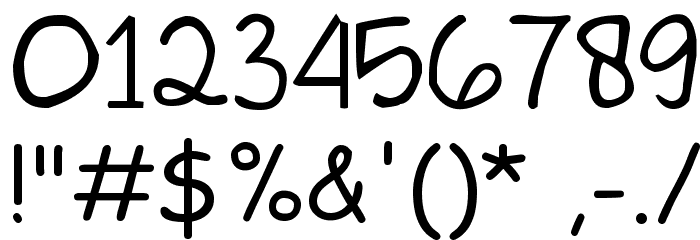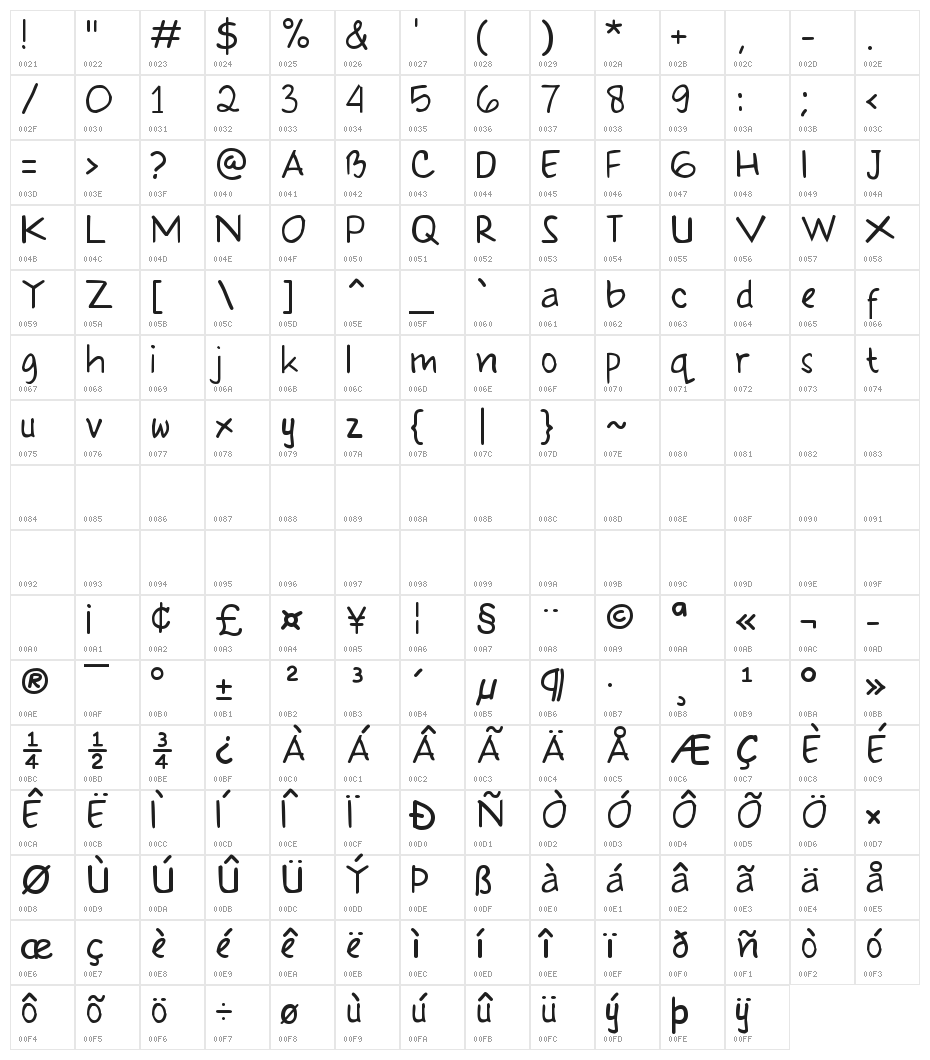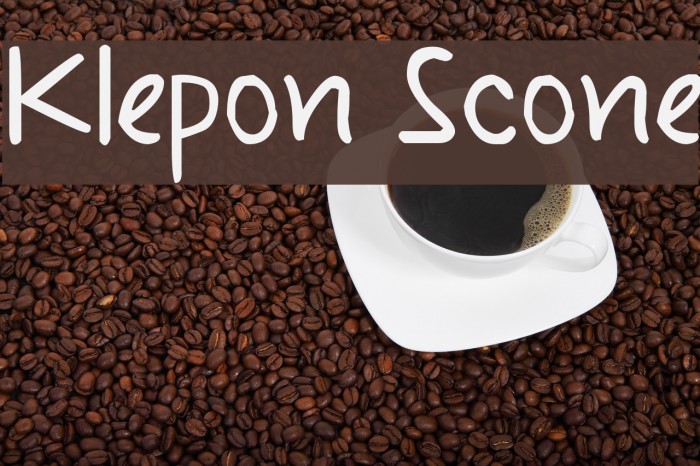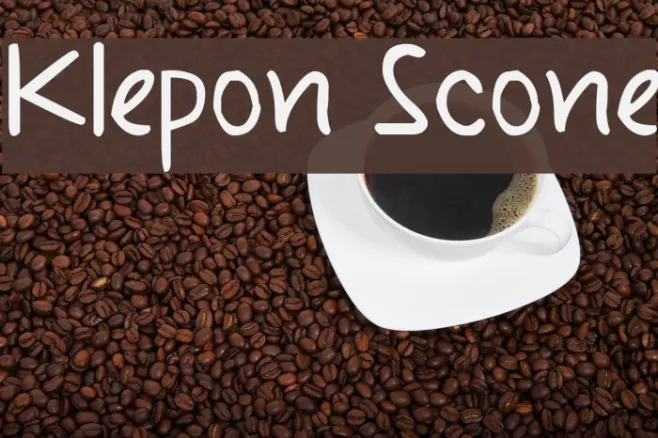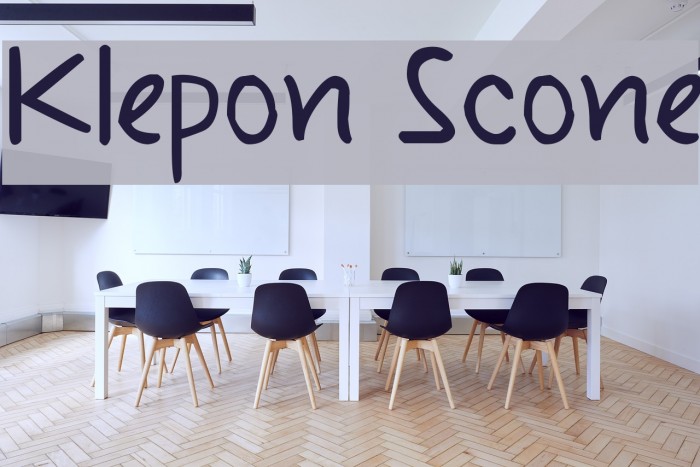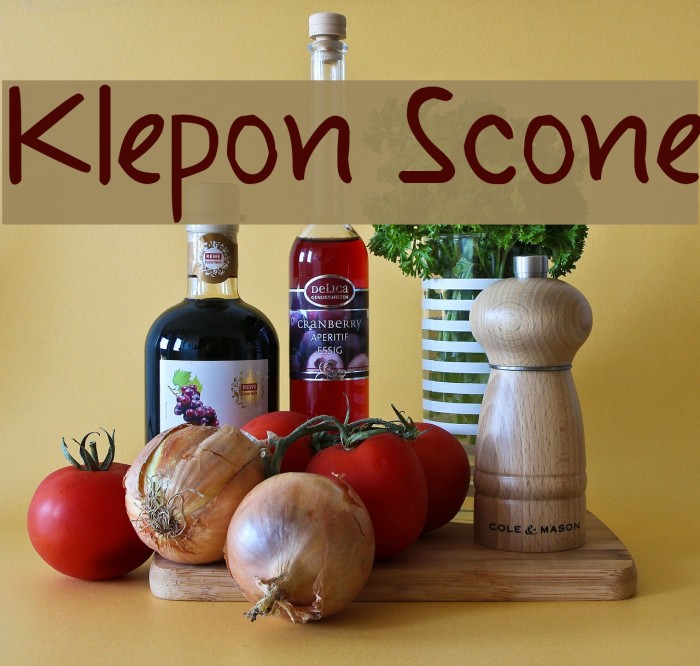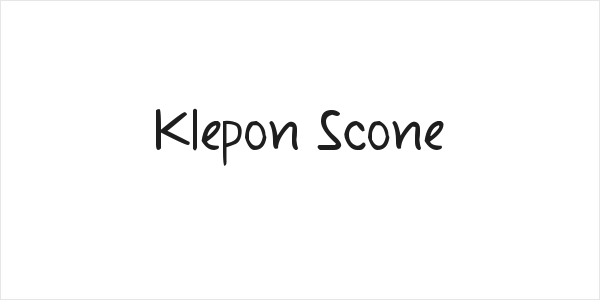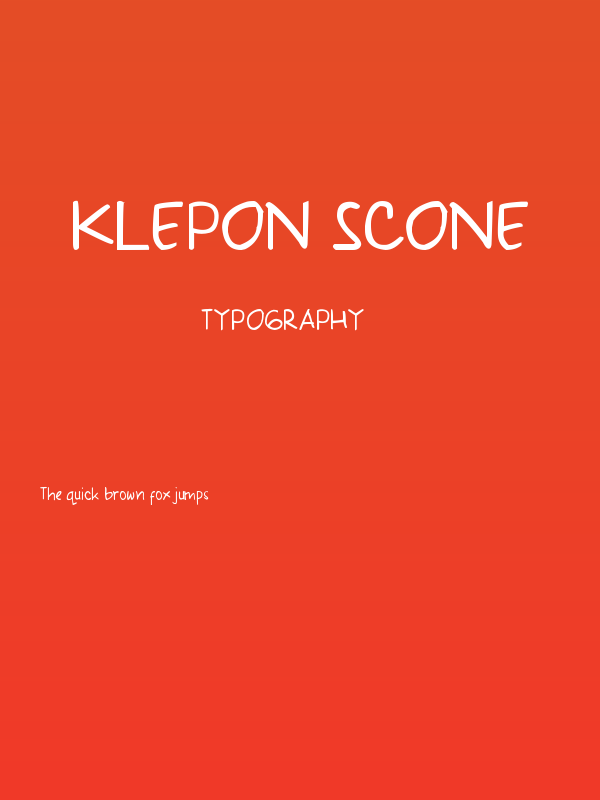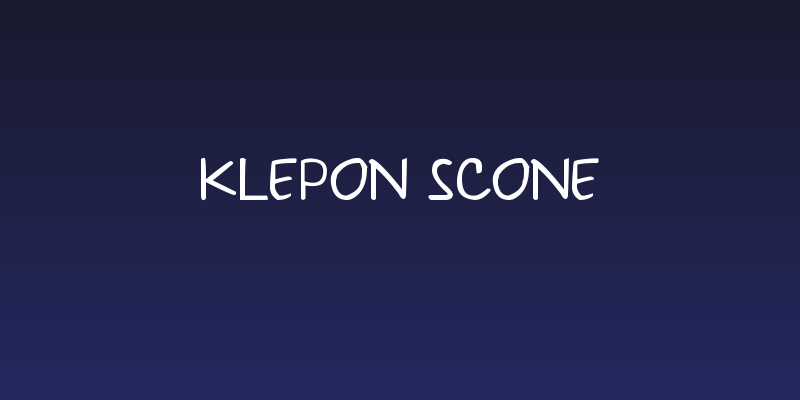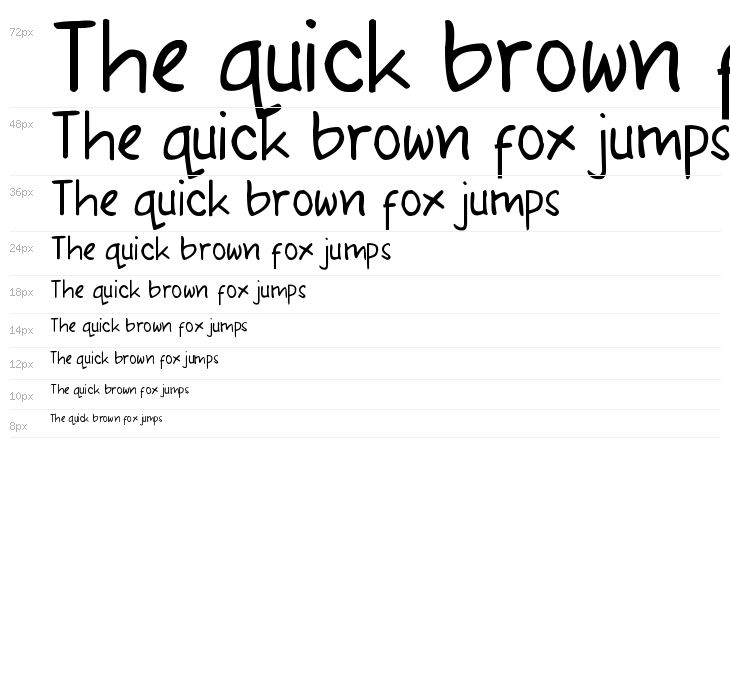
Klepon Scone Font
Klepon Scone Description
This font exudes a playful and casual vibe with its handwritten style. The characters are rounded and slightly irregular, giving it a friendly and approachable appearance. The uppercase letters are bold and prominent, while the lowercase letters maintain a consistent flow that complements the overall design. Numbers and special characters are crafted with the same whimsical touch, ensuring a cohesive look across all text elements. The font's informal nature makes it ideal for creative projects that require a personal touch.